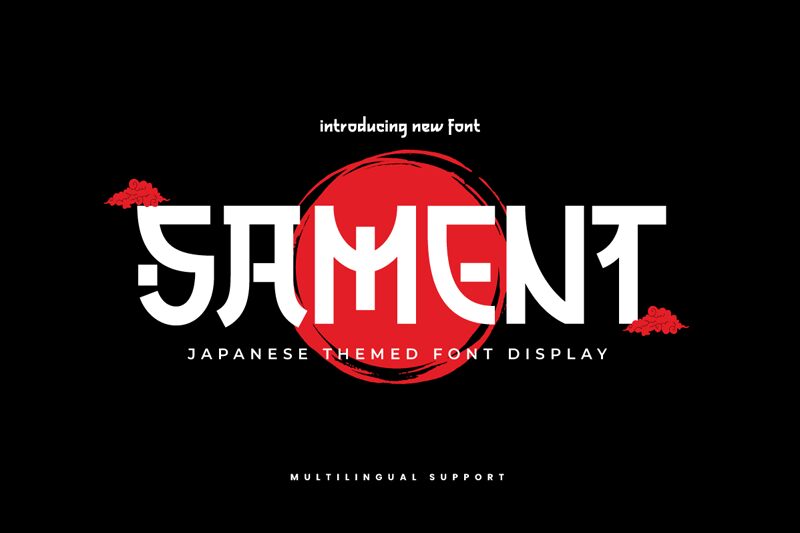
SAMENTtrial Regular
SAMENT, the semi-light Japanese-style font by Rozi of Productype, is a stunning addition to any creative project. Its clean lines and elegant curves make it suitable for everything from minimalist logos to intricate editorial layouts.
Whether you're designing a brand identity for a high-end fashion label or crafting an eye-catching website for a sushi restaurant, SAMENT's unique blend of traditional Japanese calligraphy and modern typography will add depth and sophistication to your work.